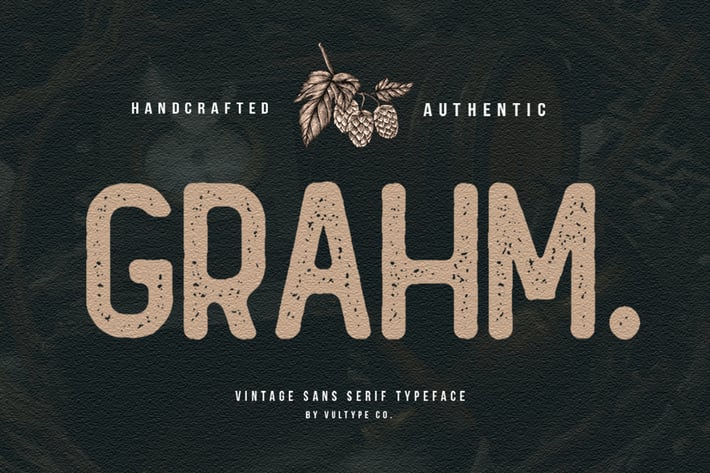
Grahm Rough Font
vultype
Grahm is vintage sans serif font with 2 font styles including Regular and rough style
Made carefully to create the perfect texture and suitable for each of your projects also great for Logotype, Branding Design, Logo Design, Digital Lettering Arts, T-Shirt/Apparel, Poster, Magazine, Signs, Advertising Design, and any vintage design needs.